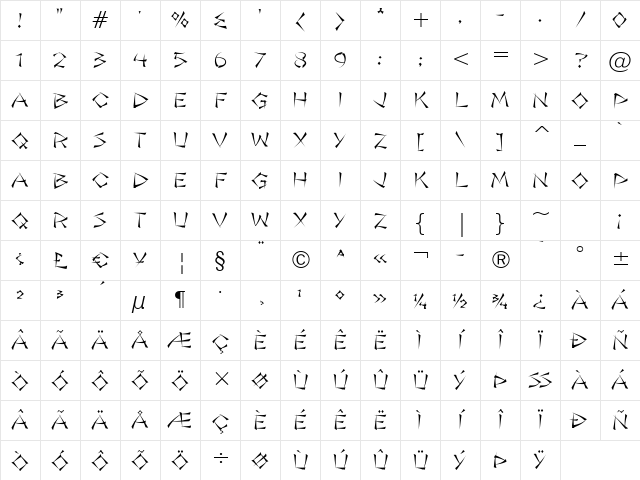
Jade Monkey BTN Light is a composed and adaptable typeface that performs quietly and consistently across a wide range of design contexts. Its slender proportions lend an understated elegance to any composition.